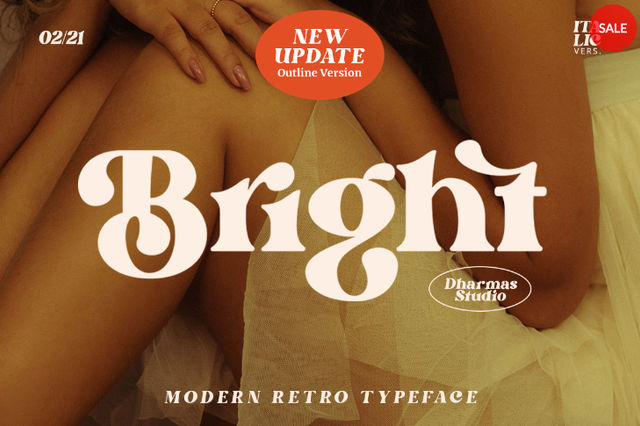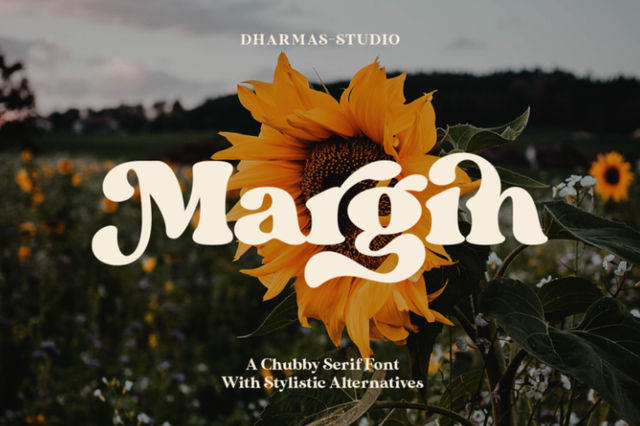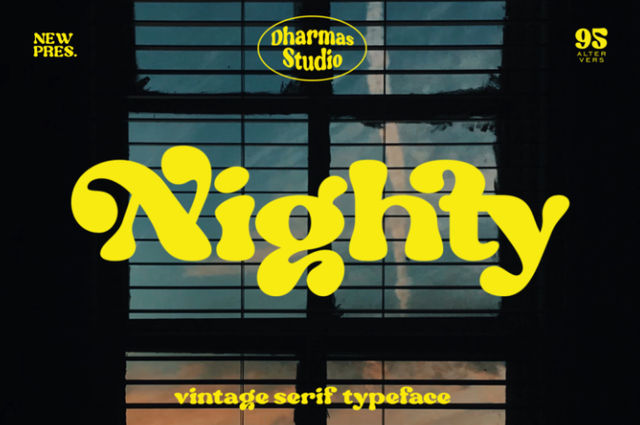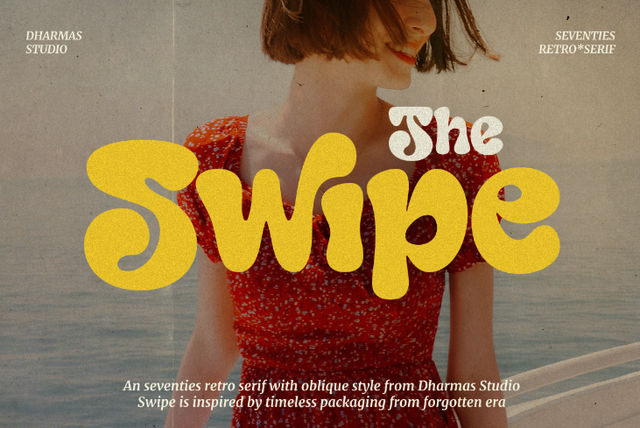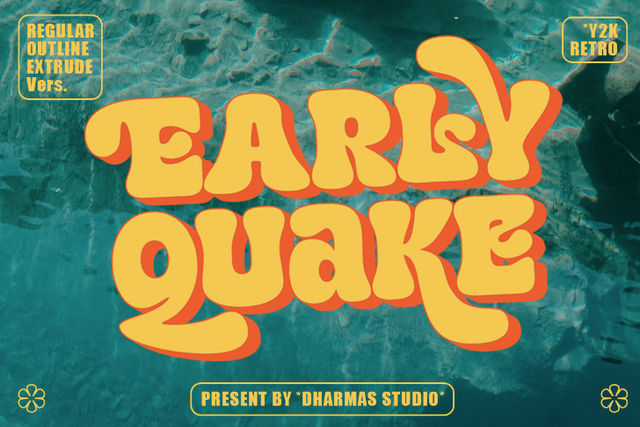
Check Out These Recs! In the Quest for the Best Retro Serif Font
Can text be the focal point of a design? Of course, it can be one. Certain fonts, such as the retro serif font, possess qualities that make them attractive to the eyes. With the right design approach, text can significantly enhance your whole project.
Are you in the middle of crafting a design project? The following list contains 12 retro-style serif fonts that you can use to amplify your designs:
1. Margin
Margin is a font you should consider if you want to invoke the 70s feeling in your design. The thick, curvy accents will turn any text into a staple. Despite its stylistic features, the text remains highly readable.
This font suits vintage logos and nostalgic mood boards. Using Margin for headers instead of body text is recommended because of its chunky shape. The font accommodates several languages and is also available in the italic form.
2. Bright
Modern and retro are two concepts that can be merged beautifully. Bright is a prime example of a font that combines modernity with a vintage vibe. Each letter of this typeface looks very unique. Some letters have more distinct accents than others.
Bright comes in three different formats: regular, italic, and outline. This means that you get more leeway in crafting your creative designs. The creator adds over 50 unique alternates and ligatures to make any design more vibrant.
3. Nighty
The design of Nighty is inspired by vintage magazines from the 70s. The retro serif font looks fun, thanks to its unique shape. There are no hard edges found in the letters. You may get a good design result by pairing this font with tropical backgrounds or bright colors.
You will get 95 unique alternates and ligatures in the nighty package. Use this font to create retro logos or headers for your social media and websites.
4. Gladolia
If you are searching for a chunky, aesthetic typeface, you should check out Gladolia. This groovy font will make any design stand out easily without extra work on your part. People can use it for magazine covers, logos, and standalone displays.
This font comes in two different styles: regular and oblique. These options allow you to get creative with your concept. There are symbols available within the package that can further enrich your designs.
5. Gunydrops
When you look at this font, the word “psychedelic.” Some characters in the Gunydrops font have smaller upper parts and bulky lower parts. Each character also shows contrasting strokes, bold and light.
This font is perfect for projects like headers and layout magazines with the 60s and 70s vibes. It is better to avoid this font if you are handling a large volume of text. It will affect the readability.
6. Early Quake
The retro serif font will assist you in recreating the Y2K vibe in the design. The Early Quake font’s unique feature is its groovy bellbottoms. This quality adds quirks to the design. It fills space over and under the text.
When purchasing the font set, you will get the regular, outline, and extruded versions. Use this font to design magazine covers and short-form content.
7. Swipe
Swipe is a retro-style font that has smooth curves and delicate boldness. When you look at text media designed with this typeface, you will feel nostalgic. This font is very versatile. It can be used in apparel designs, book covers, and various other media.
The versatility is supported by 105 alternates and ligatures. Swipe comes in four different styles, including regular and italic.
8. Replay
People choose retro fonts because of their unique look. However, sometimes, designers look for a clean font that the audience can easily digest. If that is your design woe, then Replay is a suitable alternative.
The font is easy to read, yet it does not mean that Replay is not fun. There are unique accents like diamonds on top or below the characters. You can also add squiggly swishes to the letters.
9. Uplifts
Uplifts is a retro serif font that may appear like a script font to some people. There is a combination of light and bold strokes in each character. It makes the text media look dynamic. Additionally, Uplifts make a design look elegant without trying too much.
Its default setup is italic. This font is versatile if you can use it properly. Despite its style, you can still implement Uplifts in paragraphs as long as they remain short.
10. Peachy Retro
This font looks as cute as its name, Peachy Retro. The main inspiration for this font was fonts found in 80s and 90s designs. Its most visible feature is the tightly-spaced characters. Readability is not an issue as the characters are relatively wide.
Because of Peachy Retro’s features, you can present this font in large and small forms without a problem. This font comes in regular and outline versions. You can combine the two versions to enhance your design.
11. Decorya
Retro Serif Font
Decorya mixes classic calligraphy with modern serif. This retro serif font looks lanky and tall. It is well-suited for wedding brands, vintage logos, and advertising. Fashion brands can also use Decorya to make their packaging.
This font has 46 distinctive ligatures and alternates. It is also available in three styles: regular, condensed, and expanded. This variety of styles and elements allows designers to come up with ingenuous designs.
12. Kindly Season
Screen Shot 2023 12 19 At 164150 1
This modern decorative font will take you back in time. Kindly Season has a psychedelic energy that amplifies the charm of any graphic design. The font’s default setting is uppercase. The letters come with a variety of swishes and accents.
Its stylistic features make Kindly Season fun. There are more than 60 ligatures found within the set. You can customize logos, headlines, and other designs with those options.
You must ensure that other elements in your design will support your objective, which is the ultimate retro vibe. Choosing shapes that scream “vintage” is key in the design. Some people also add textures to their retro designs for maximum impact.
Besides getting the right retro serif font, you must select the right color palette. The color palette in the retro era tends to be more muted, focusing on teals, reds, and taupes.